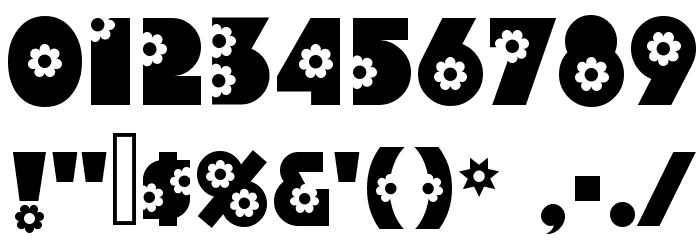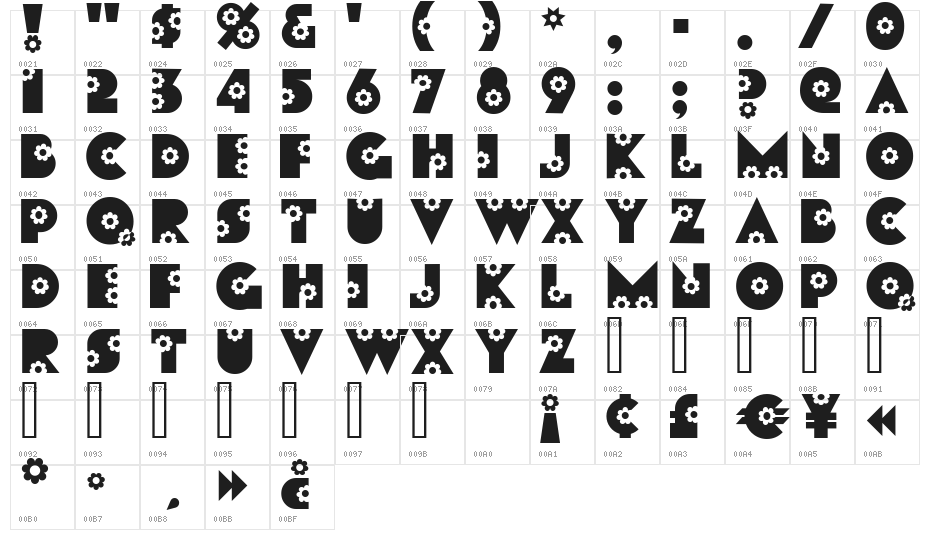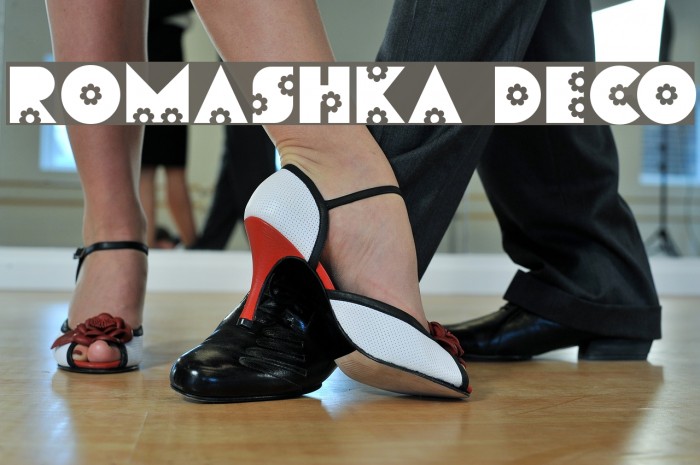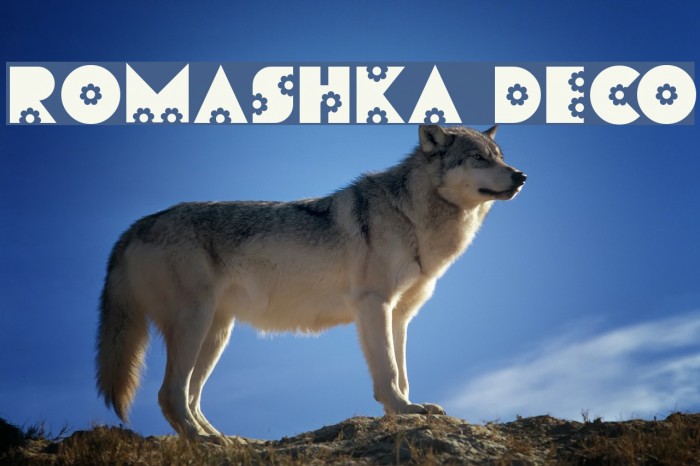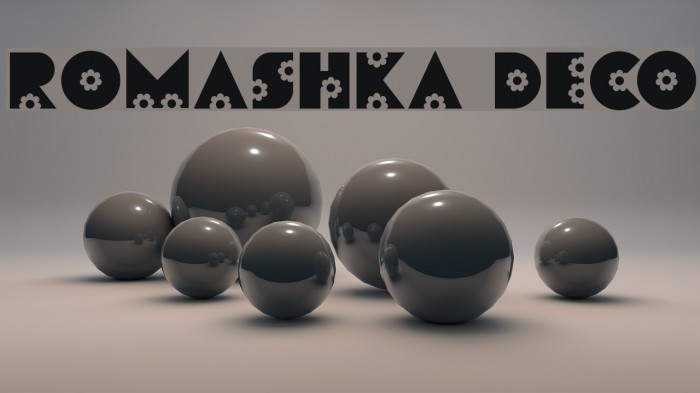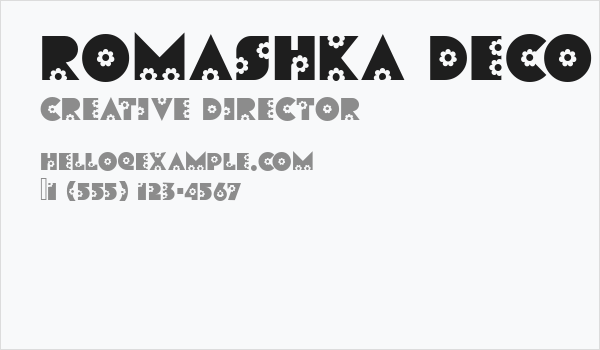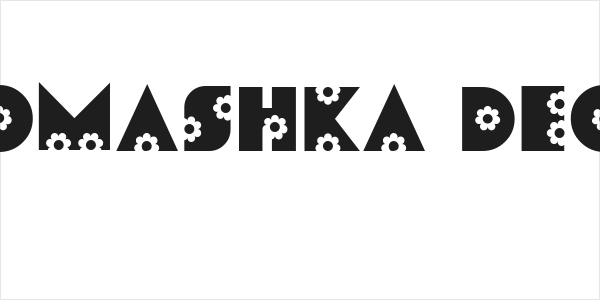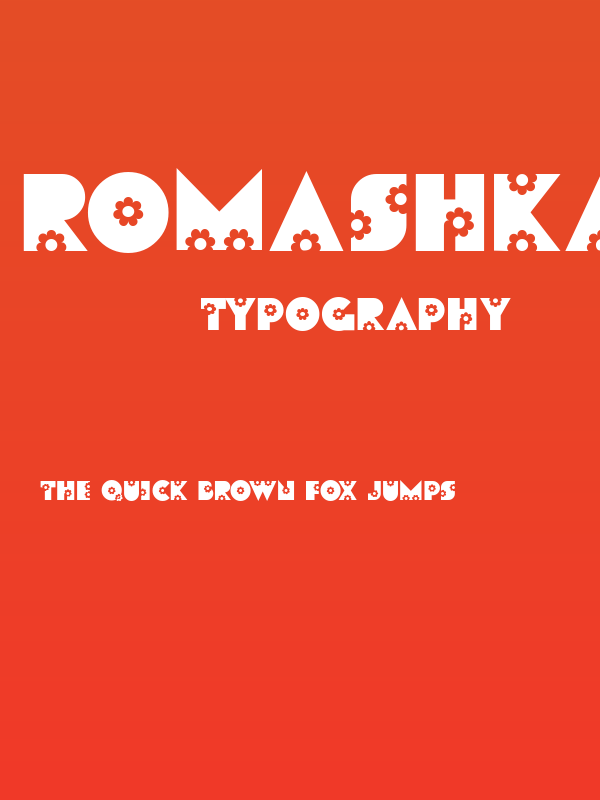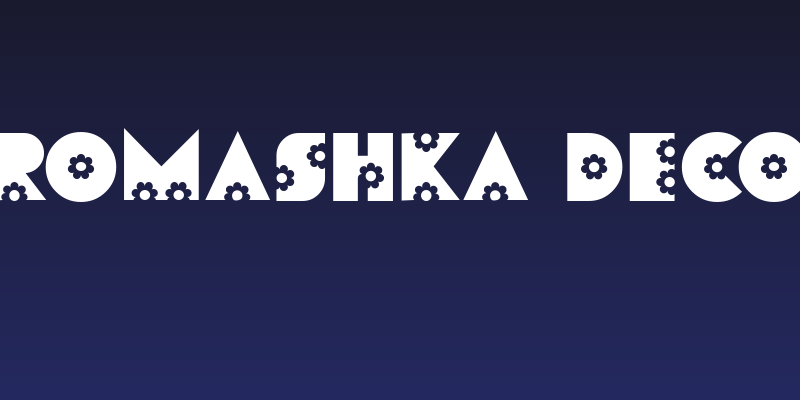
Romashka Deco Font
Romashka Deco Description
This decorative font features bold, geometric letterforms adorned with floral motifs. Each character is uniquely designed with flower patterns integrated into the solid, black shapes, creating a playful and eye-catching effect. The uppercase and lowercase letters maintain a consistent style, with the floral elements adding a whimsical touch. The numbers and special characters follow the same design principles, ensuring a cohesive look across all glyphs. This font is ideal for projects that require a fun and decorative typeface, such as invitations, posters, or branding materials that aim to convey a sense of creativity and uniqueness.
| Proposed Projects | Ideal for invitations, posters, branding, and any creative projects needing a playful touch. |